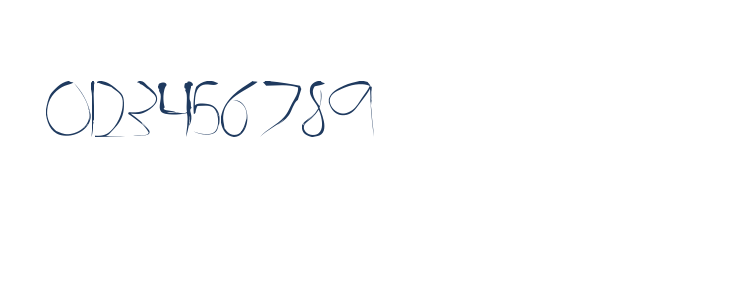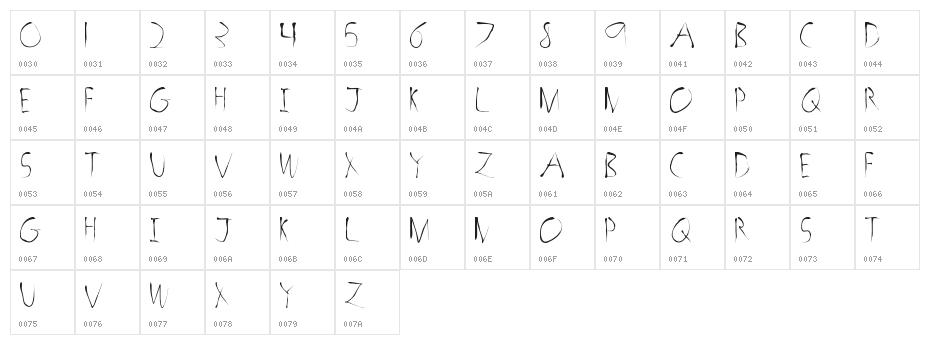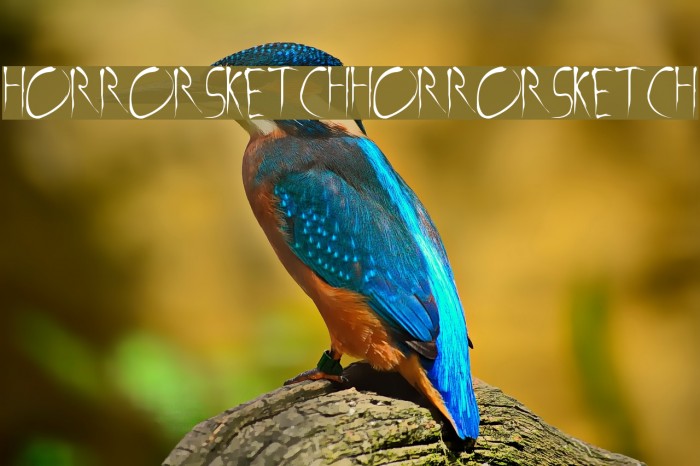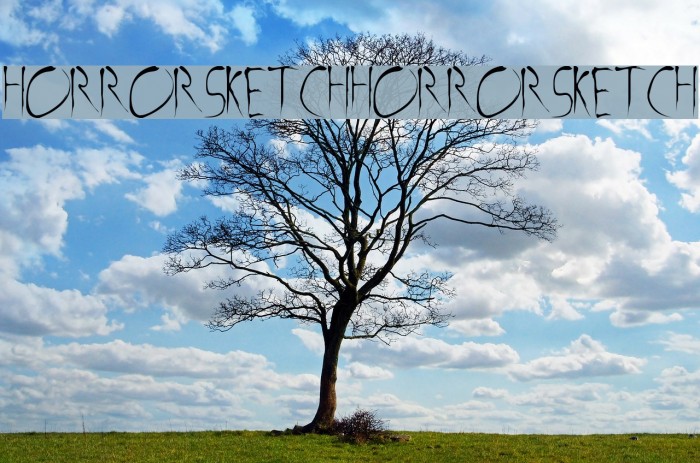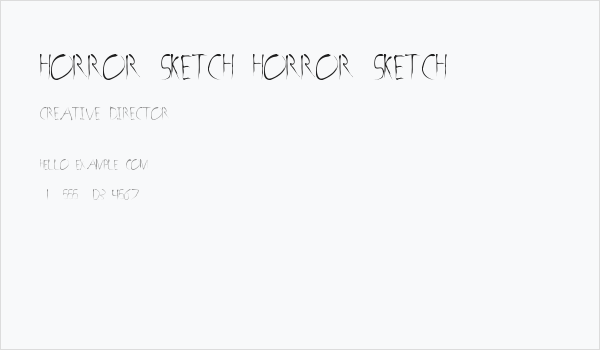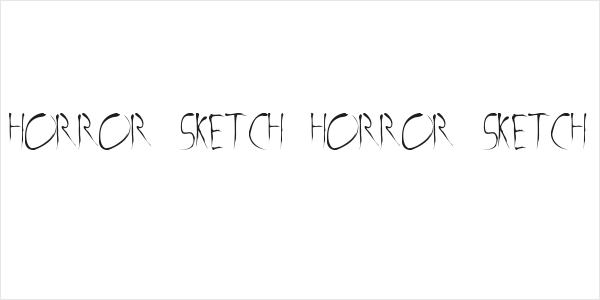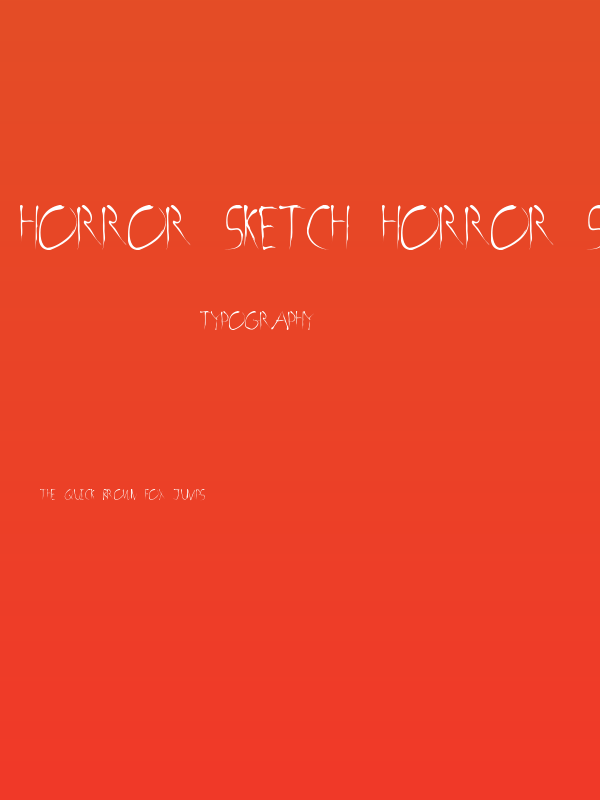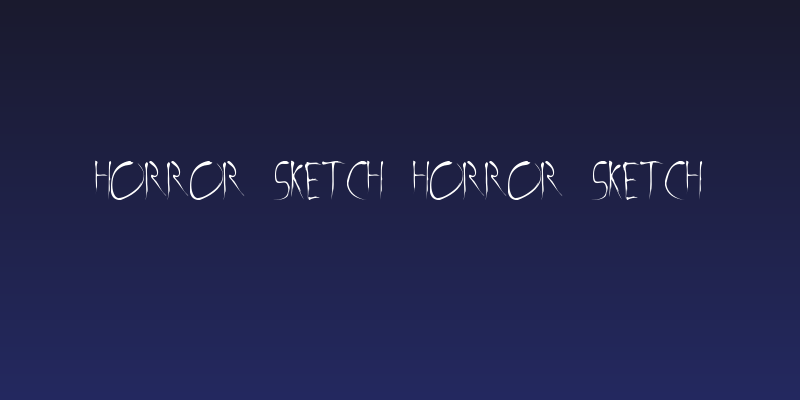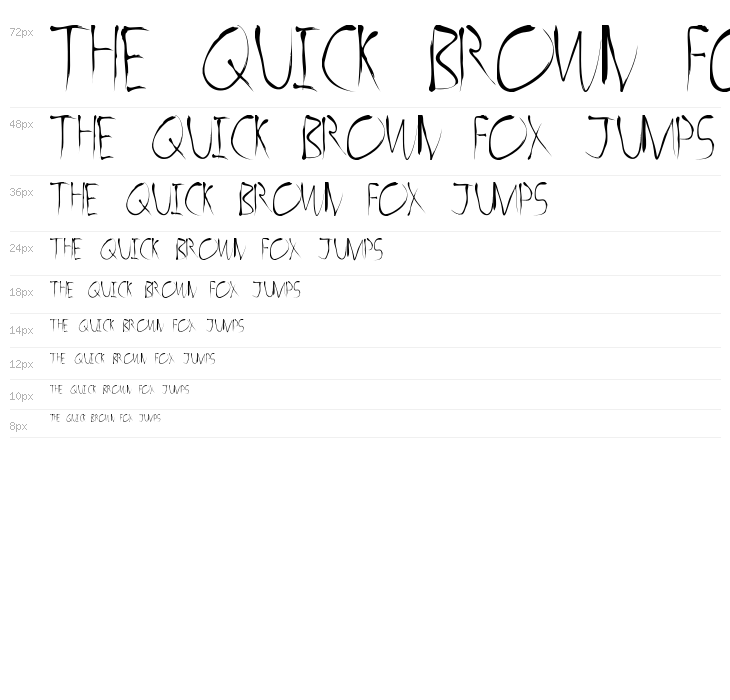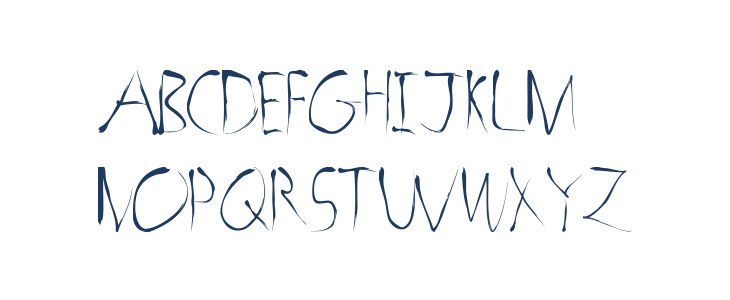
Horror Sketch Font
Horror Sketch Description
This font features a distinctive, eerie style with elongated, sharp strokes that evoke a sense of horror and suspense. The characters are unevenly weighted, with some parts appearing thin and others thick, creating a dramatic contrast. The letters have a hand-drawn, sketch-like quality, adding to the unsettling aesthetic. This font is ideal for creating a spooky atmosphere, perfect for Halloween-themed projects or horror movie posters. Its unique design captures attention and conveys a sense of mystery and intrigue.
Jacob Toole
| Overall Style | Horror, Sketch |
| Use Case | Headlines, Posters, Themed Events |
| Proposed Projects | Ideal for Halloween invitations, horror movie posters, haunted house flyers, and spooky-themed merchandise. |